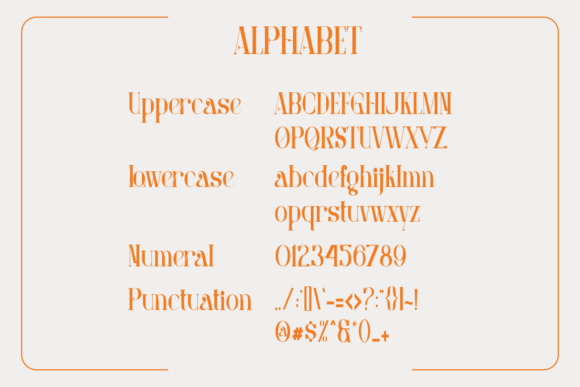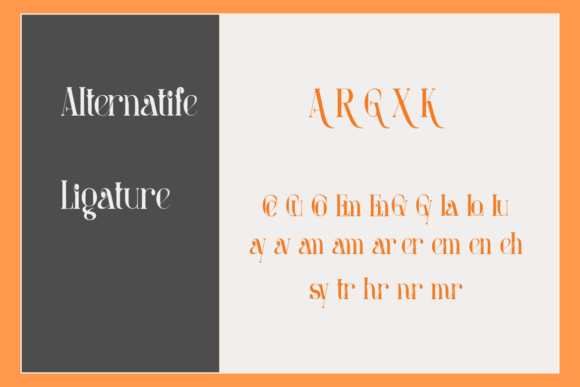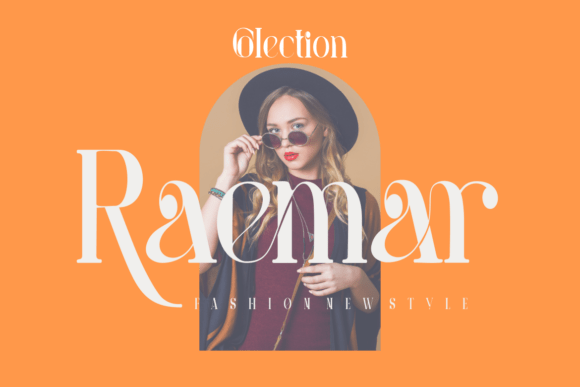
Lutry Xary Font
Lutry Xary is a refined luxury display font with a fashionable twist. Featuring tall, slender letterforms with elegant curves and high contrast strokes, this font is ideal for upscale branding, editorial headlines, packaging, and boutique logos. Its stylish flair adds sophistication and modern charm to every design.